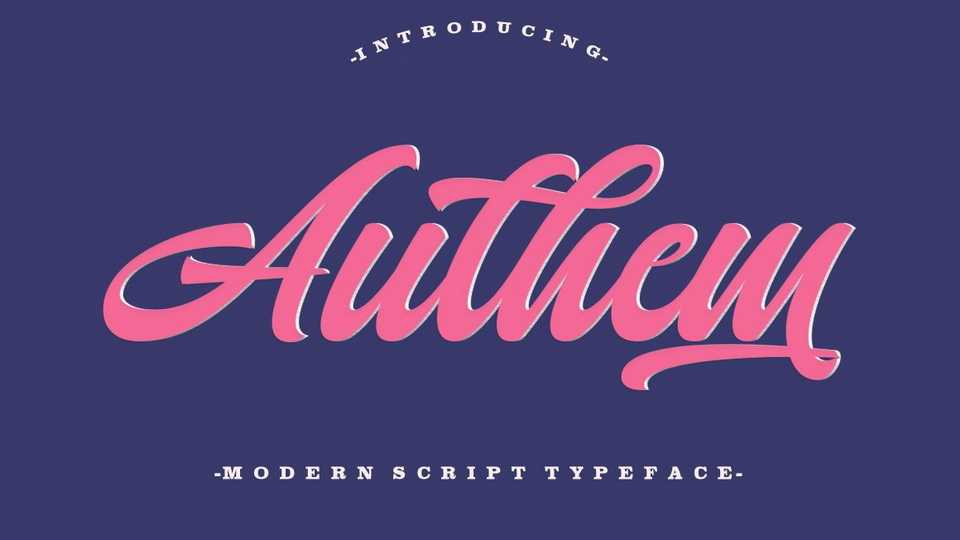
Download Authem font, a hand lettered script with a vintage feel. Authem is perfect to use for logos, wedding invitations, titles, t-shirts, letterheads, signboards, labels, posters etc.
Designer: Letter Fresh Studio